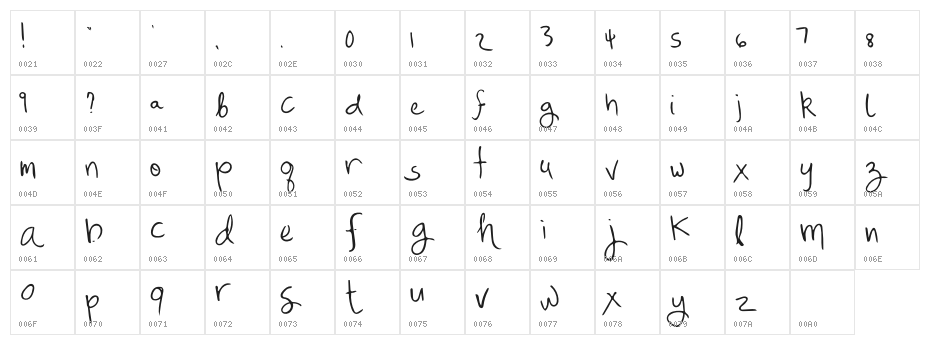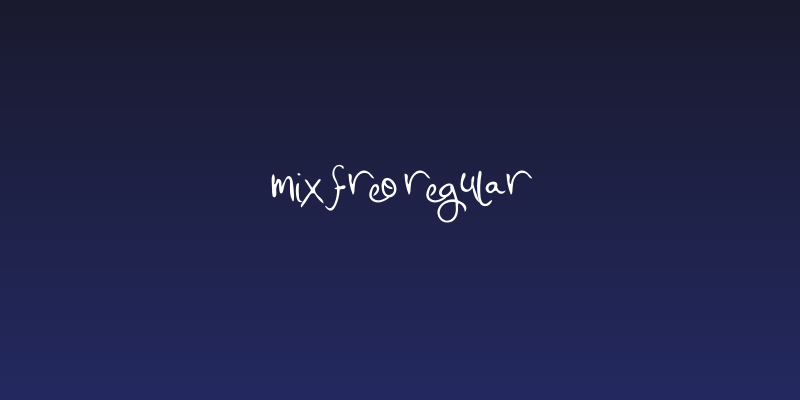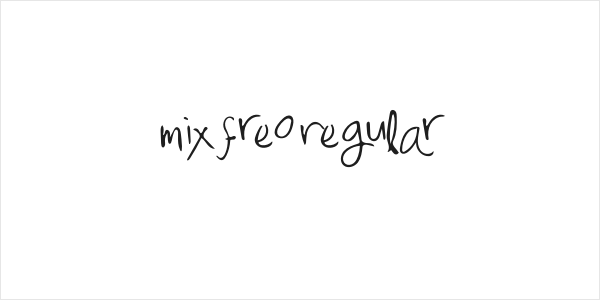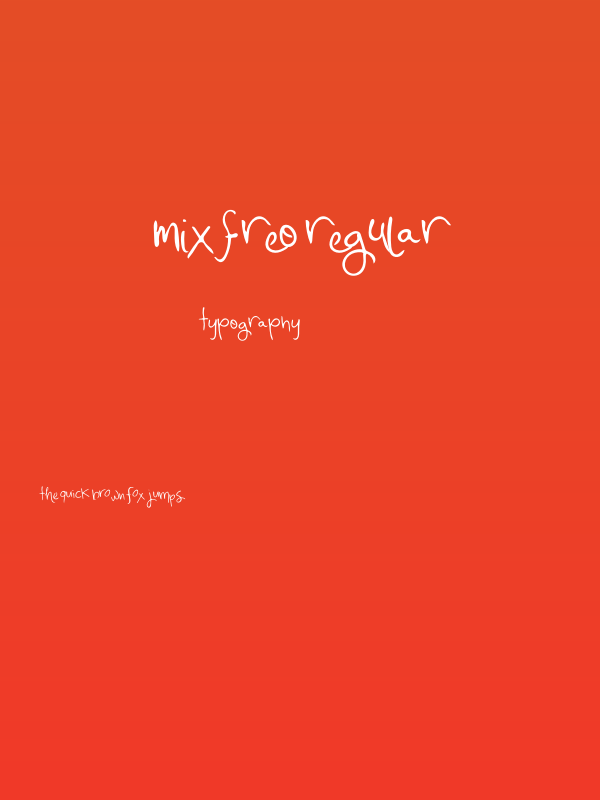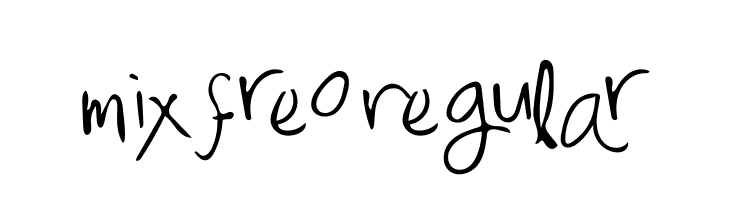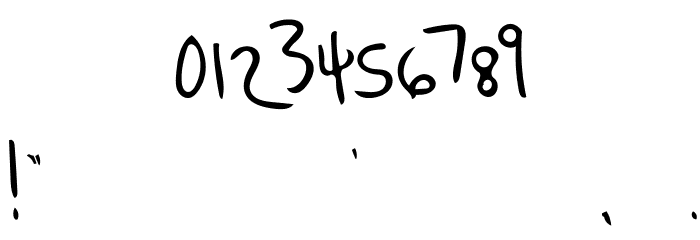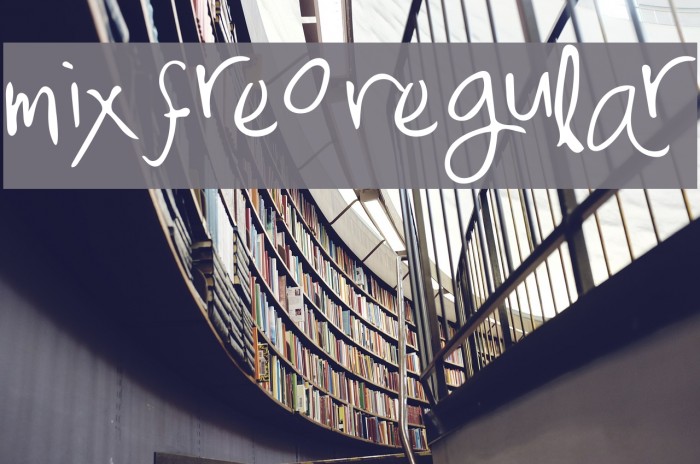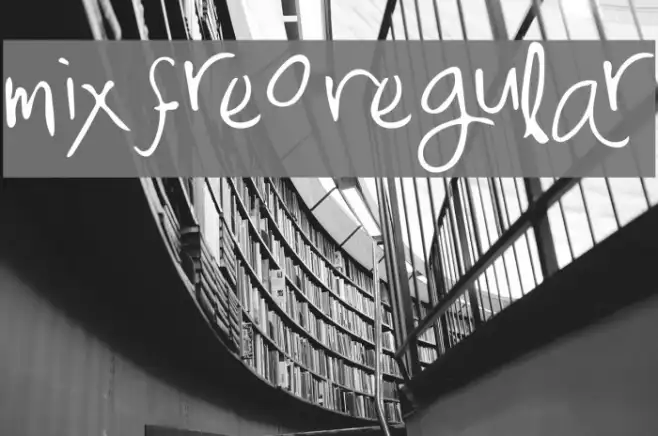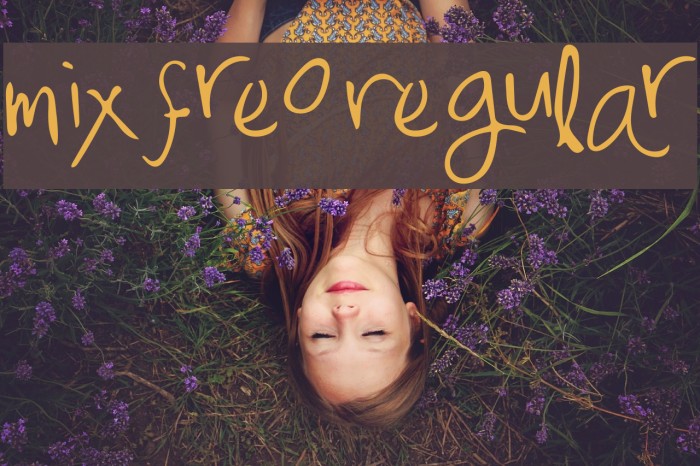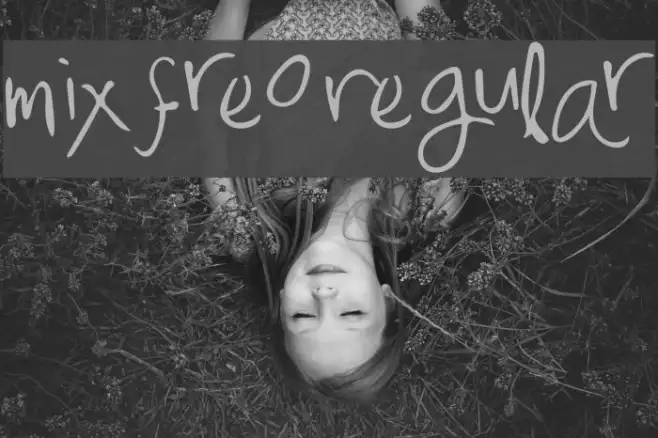
Mix Freo Regular Font
Mix Freo Regular Description
This font features a playful and casual handwritten style, characterized by its fluid and organic letterforms. The strokes are uneven, giving it a dynamic and lively appearance. The uppercase and lowercase letters are distinct, with some letters having exaggerated loops and curves, adding to its whimsical charm. The numbers follow the same playful style, making them stand out. The special characters are designed to match the overall aesthetic, ensuring consistency throughout the font. This font is perfect for projects that require a personal and informal touch.
| Use Case | Logos, Headlines, Informal Text |
| Proposed Projects | Ideal for greeting cards, personal notes, children's books, and creative branding projects. |